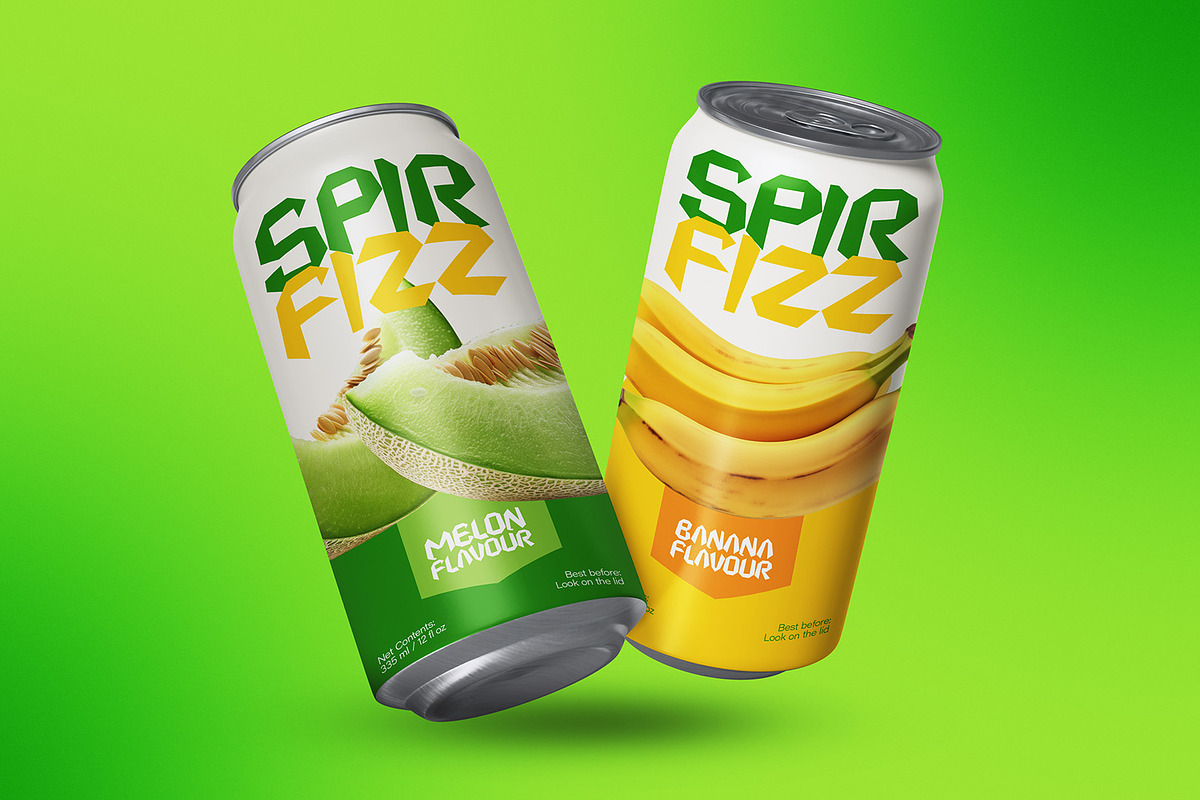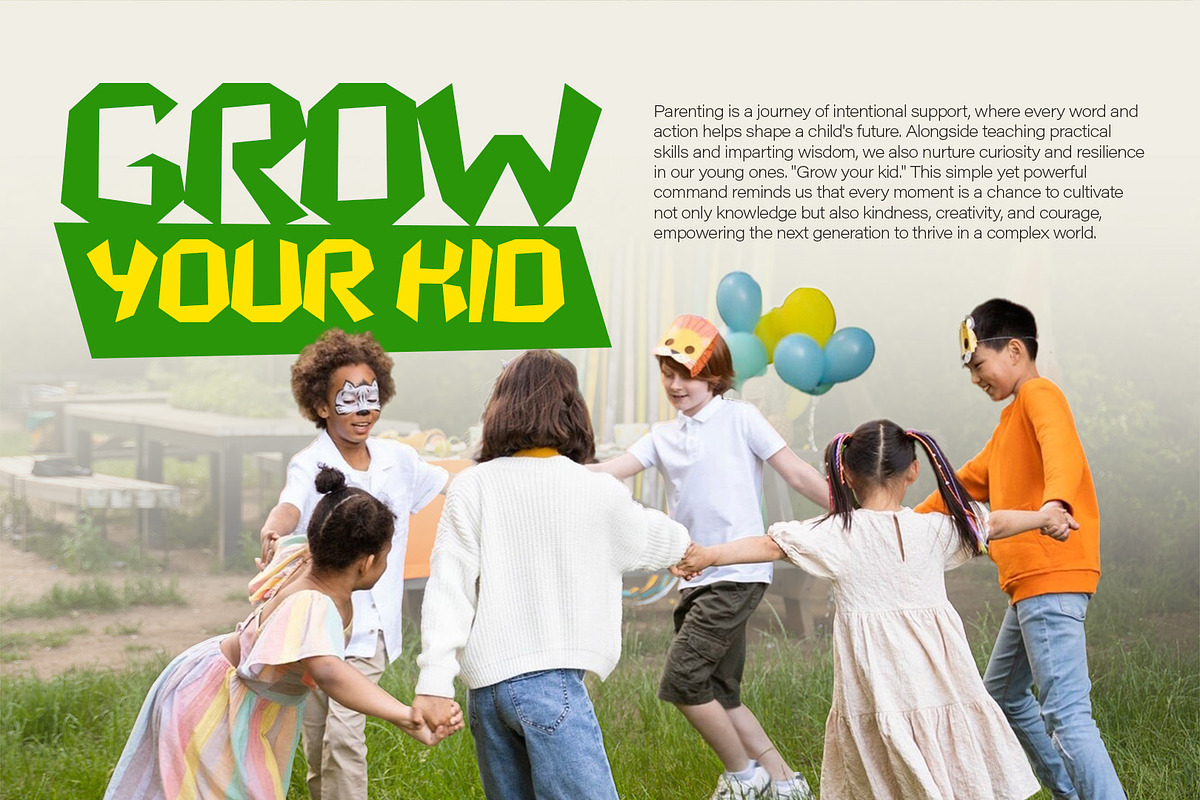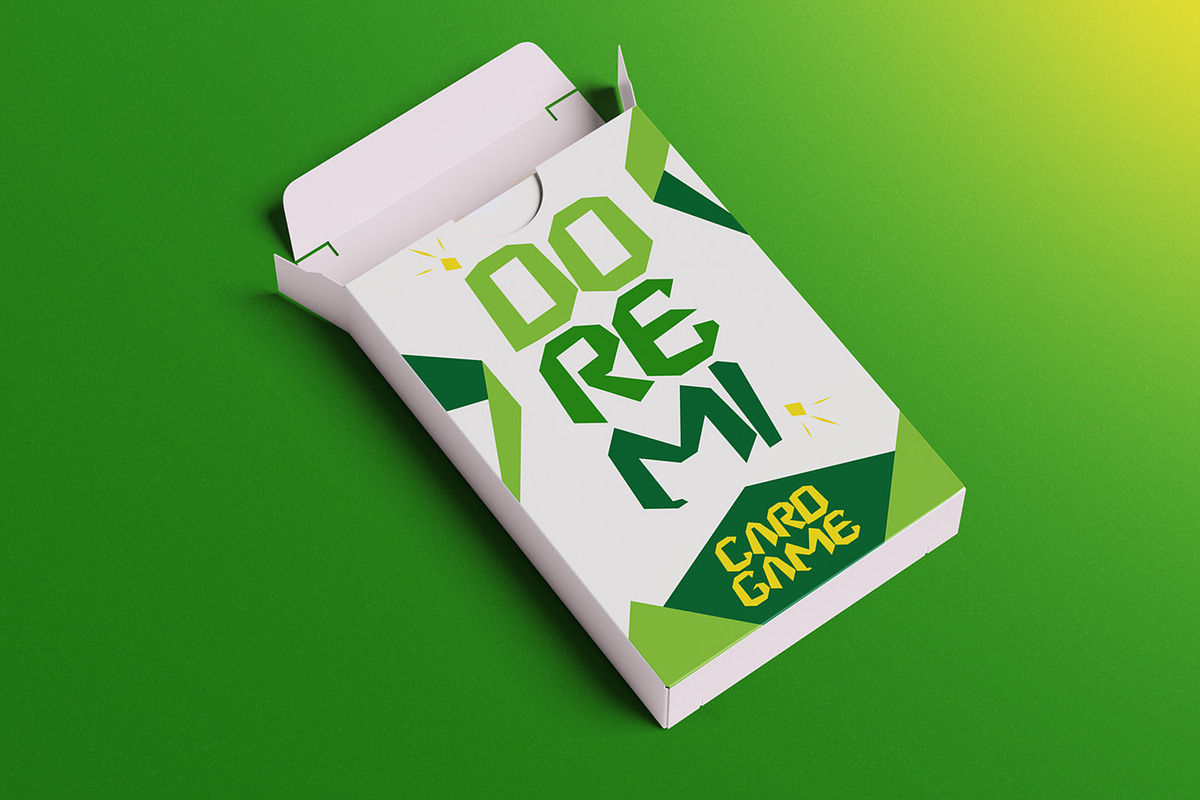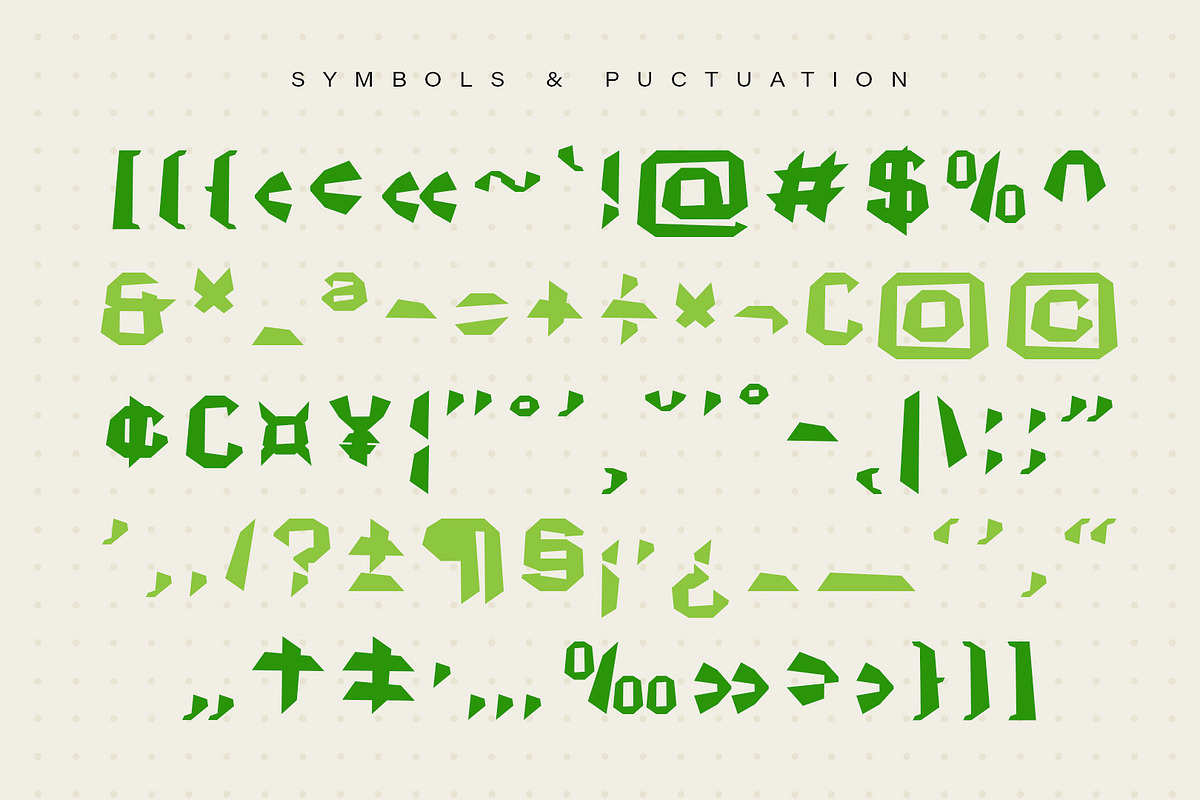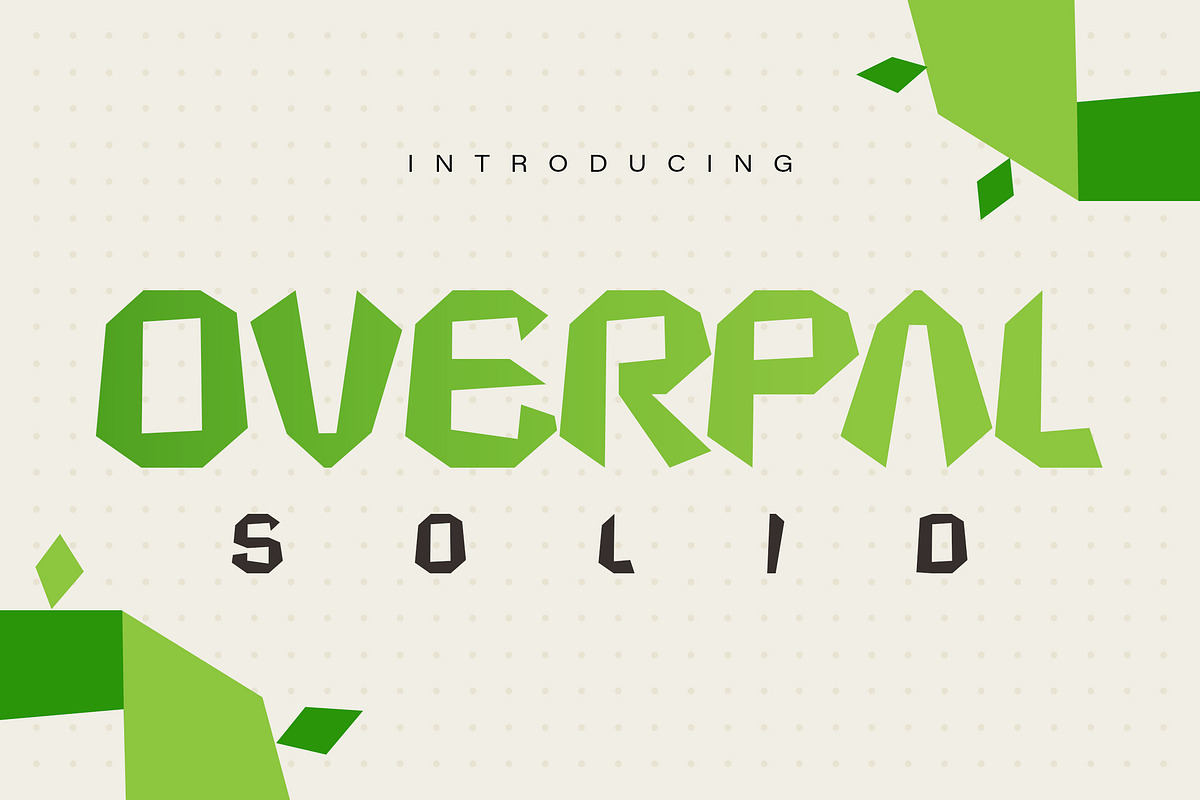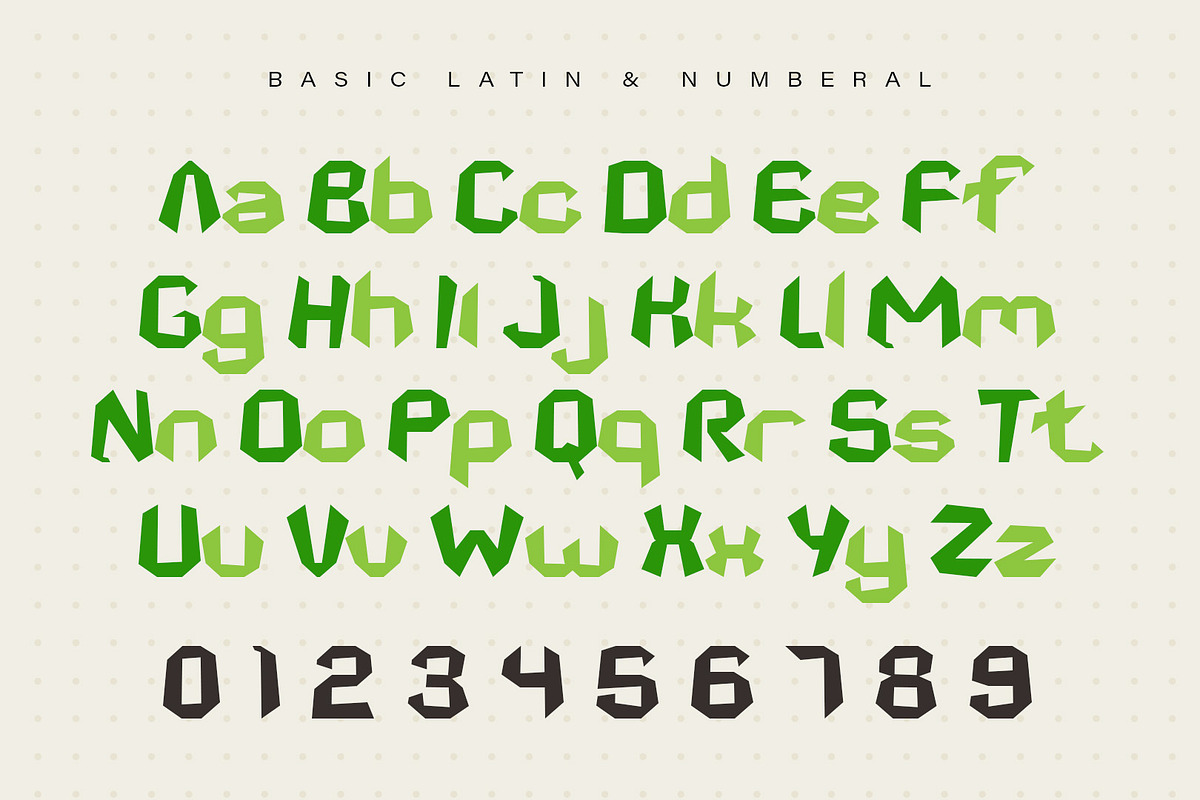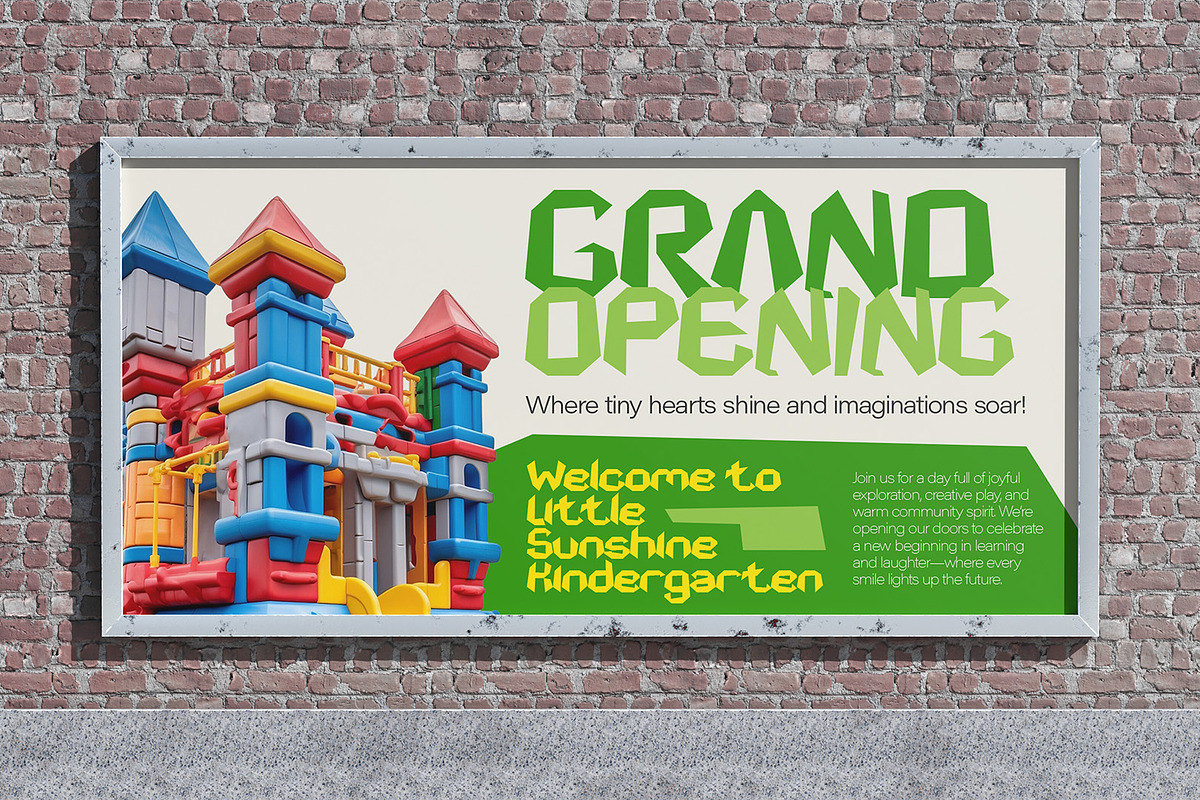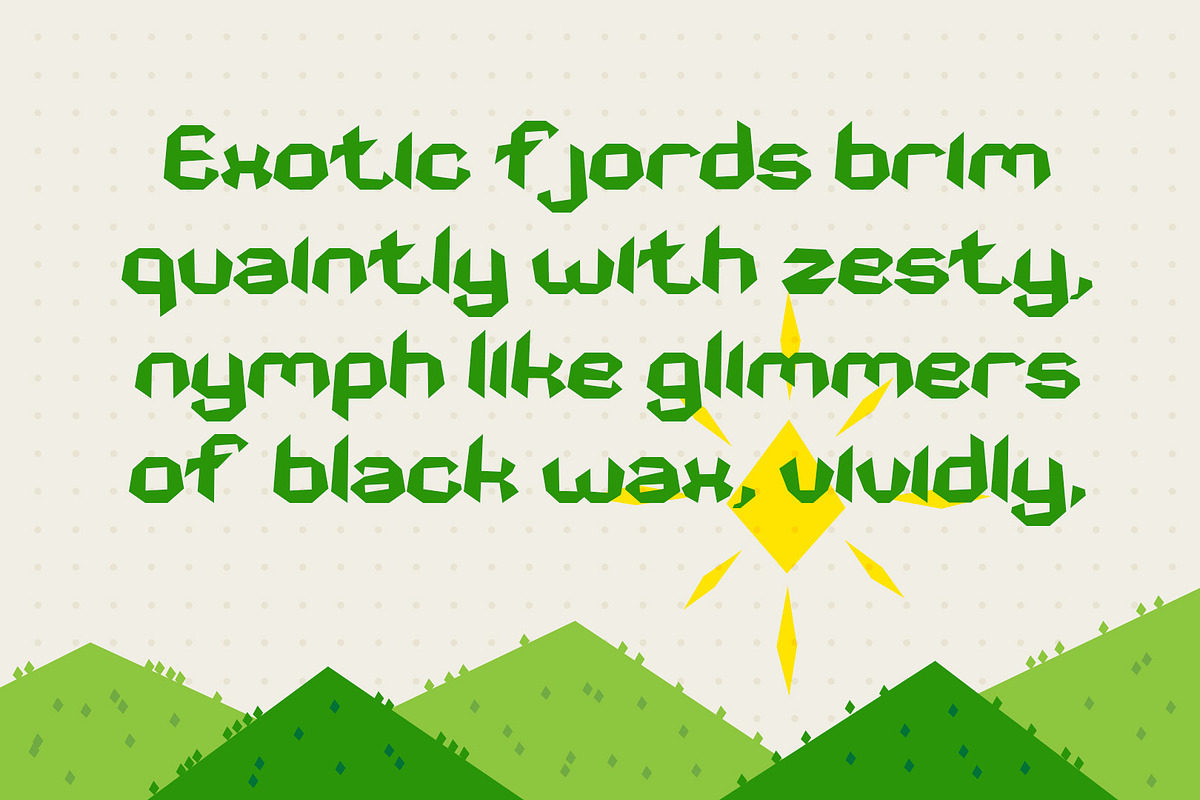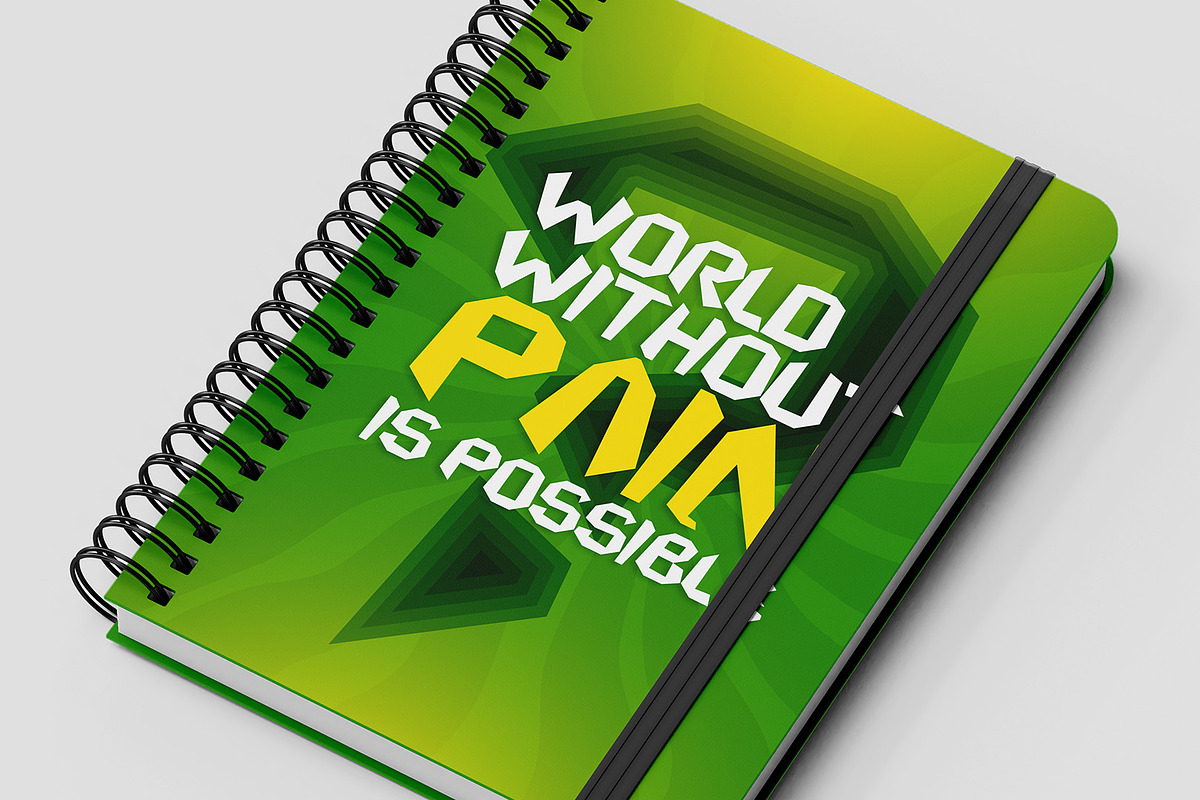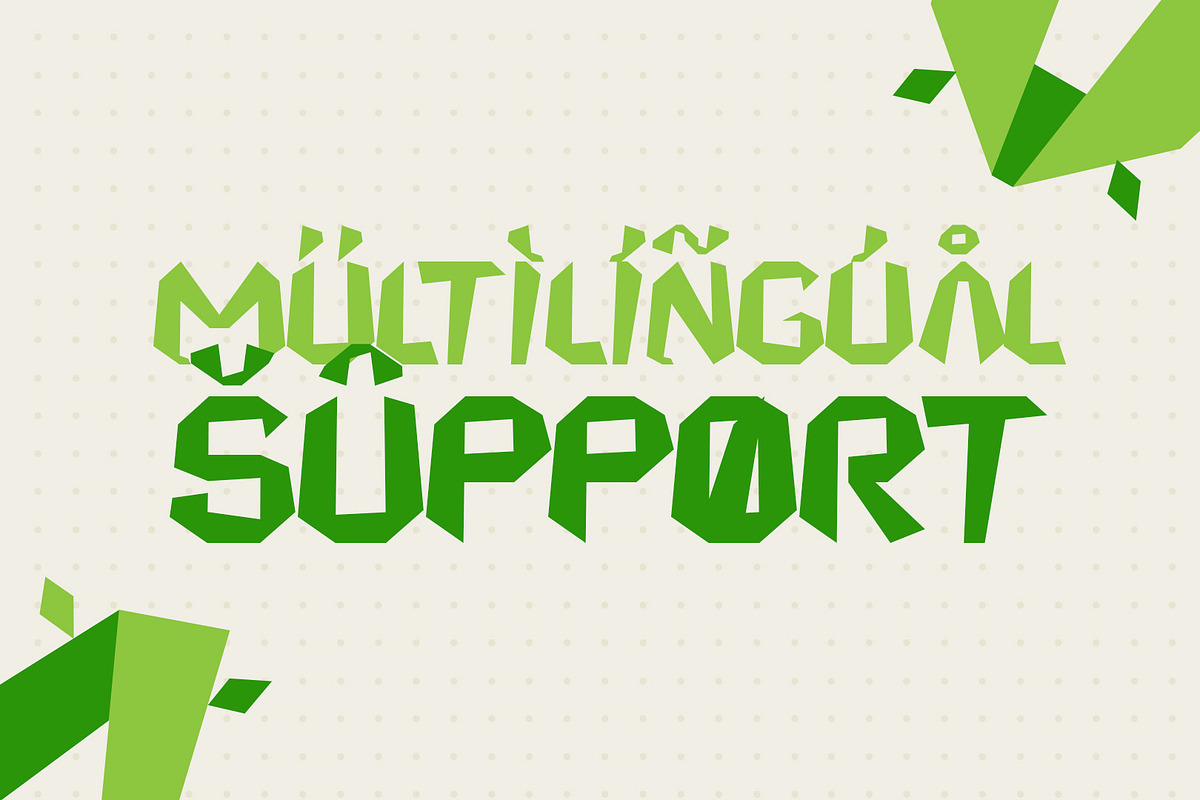
Overpal Solid - Geometric Playful
Overpal Solid is a bold and angular display typeface that commands attention with its geometric precision. Each character features sharp edges and distinct contours, contributing to its futuristic and structured aesthetic. The font’s compact letterforms maintain a strong visual impact, making it an excellent choice for branding, posters, and digital interfaces. Its streamlined yet expressive construction ensures readability while preserving a unique and modern typographic presence.
Designed for versatility, Overpal Solid balances creativity with functionality through its complete set of uppercase and lowercase letters, as well as numerals. Its rigid, angular shapes lend themselves well to tech-inspired designs, gaming interfaces, and striking headlines. With its clean and calculated structure, Overpal Solid embodies a forward-thinking approach to typography, delivering a sophisticated and stylish experience for various design applications.
- 1 Styles Font : Solid
- Standard letter A-Z and a-z
- Numeral, Symbol, and Punctuations